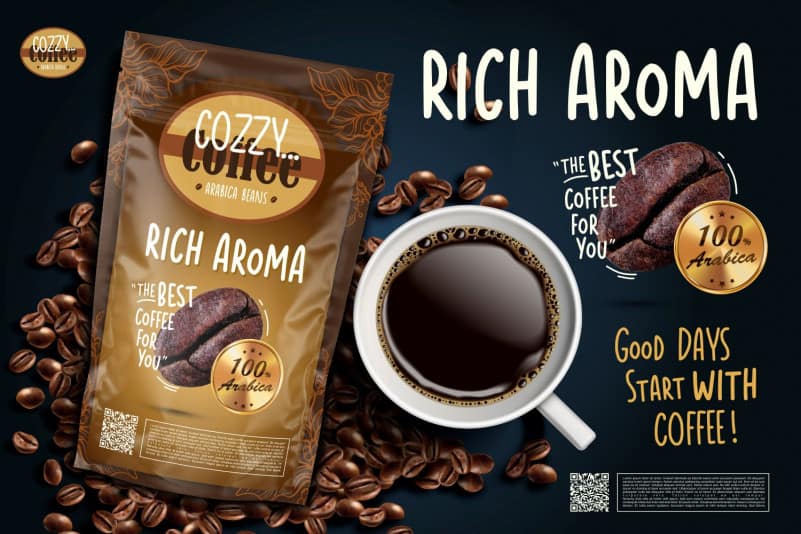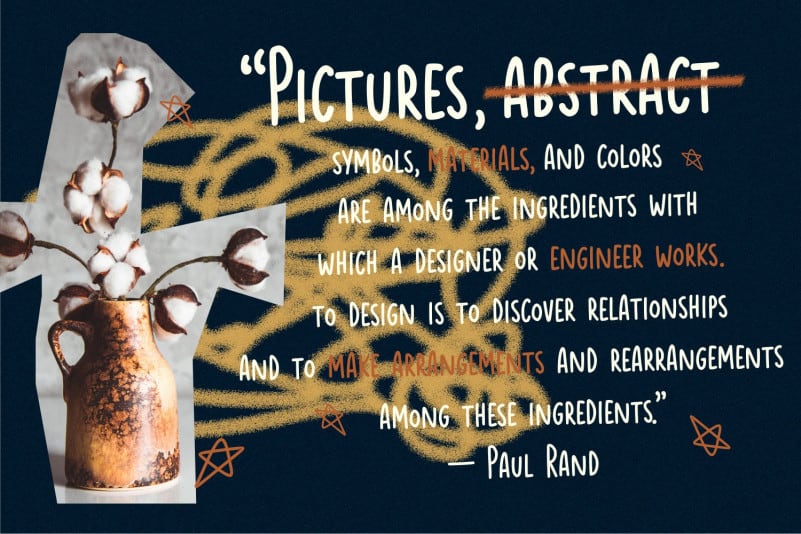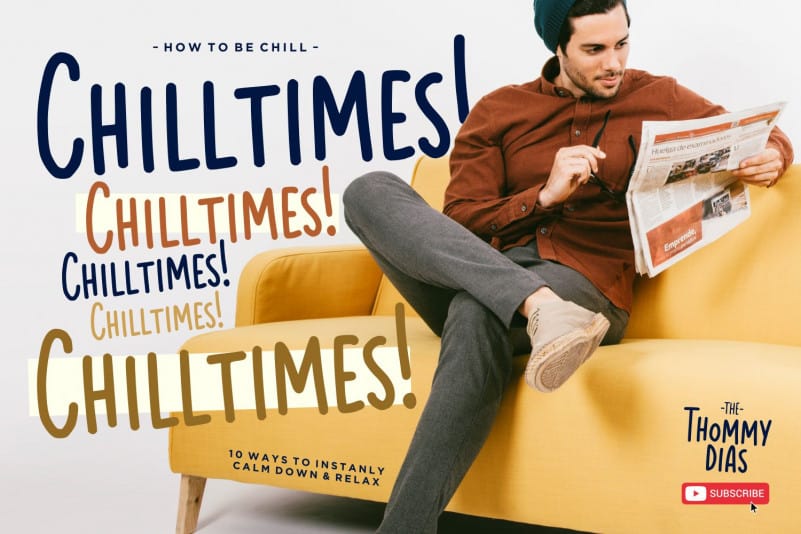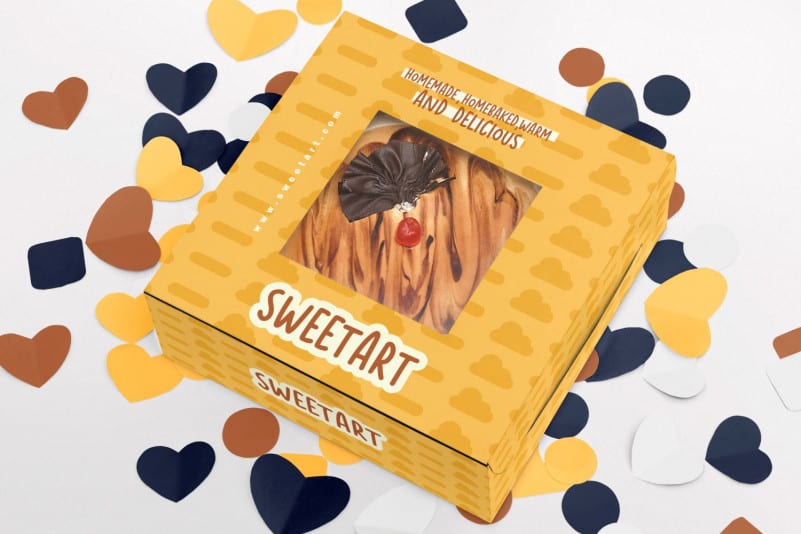
Brandy Coffee Handwritten Font
Brandy Coffee Handwritten Font is a Quirky Handwritten Font. Brandy Coffee is perfect for product packaging, branding project, megazine, social media, wedding, or just used to express words above the background.